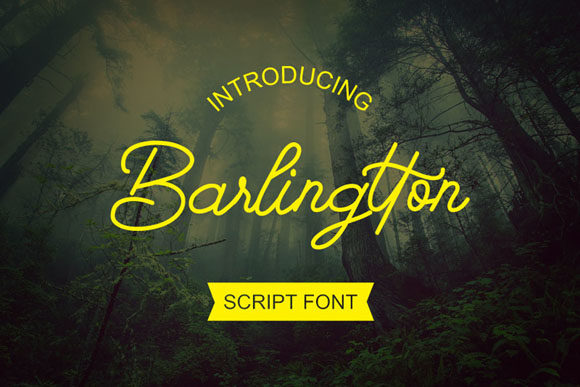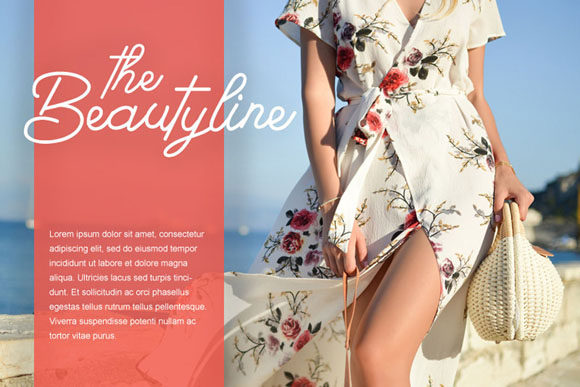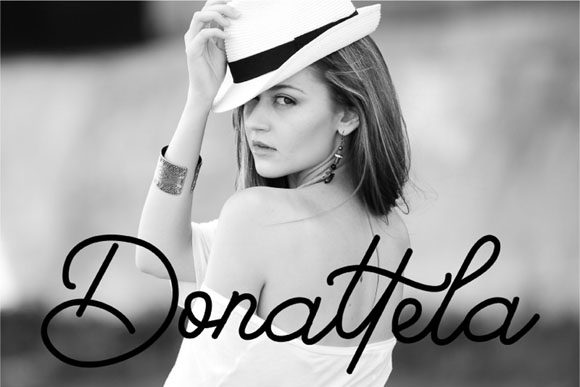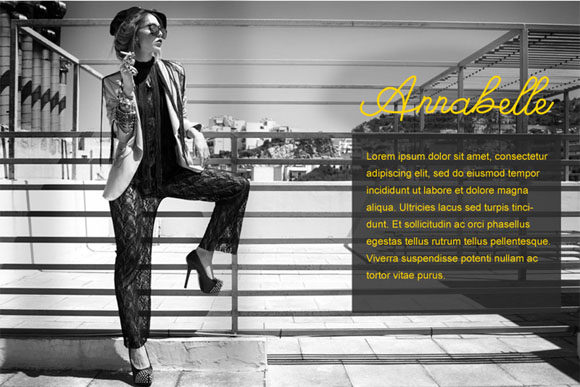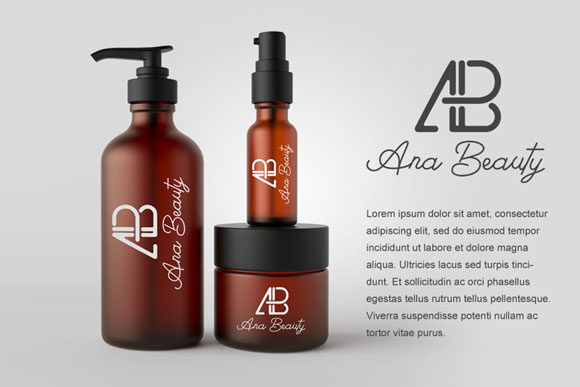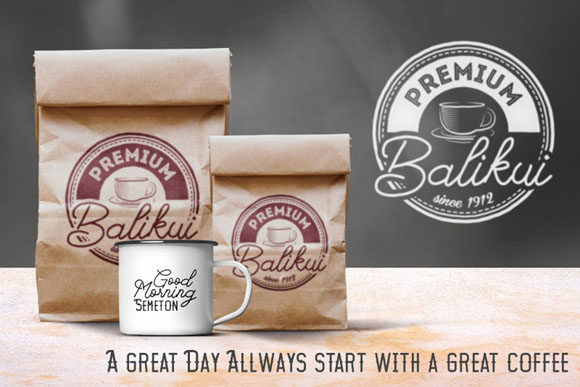
Barlingtton Script Font
About Barlingtton Script Font
Barlingtton is an incredible handwritten font with an undeniably authentic charm. It will inspired any new design project with its bold feel.